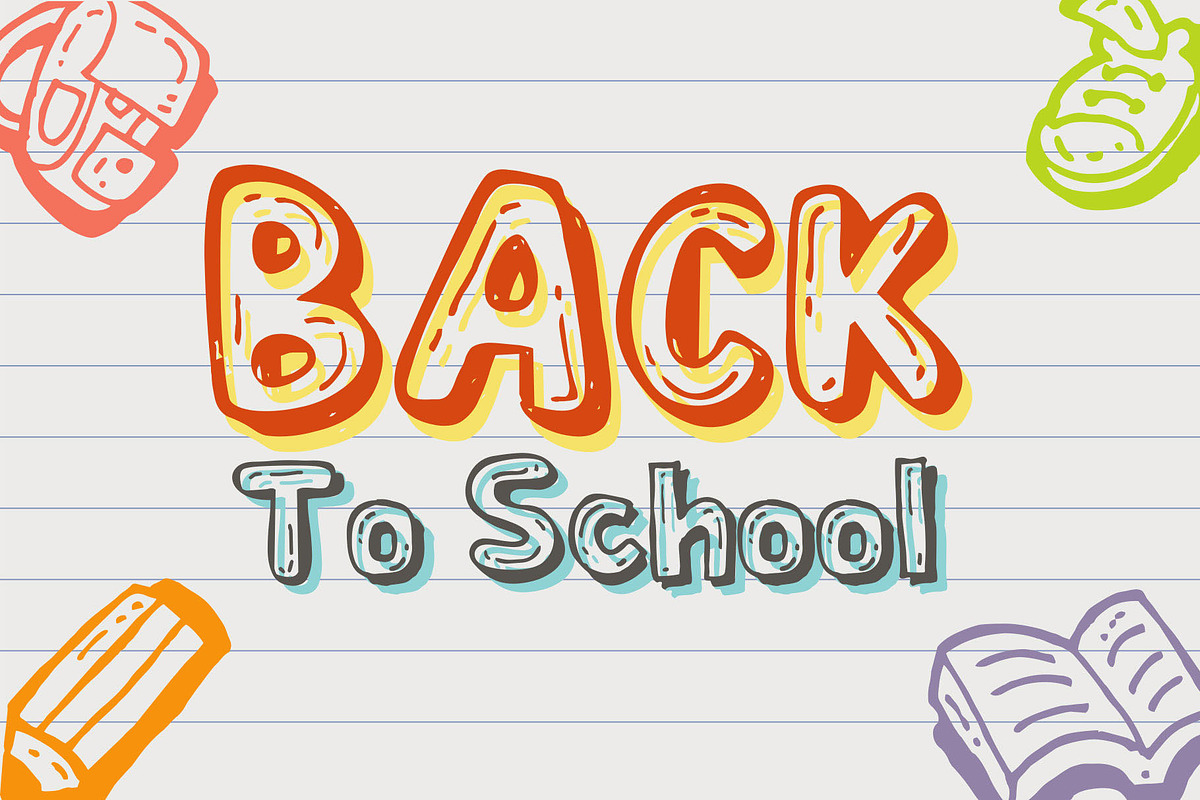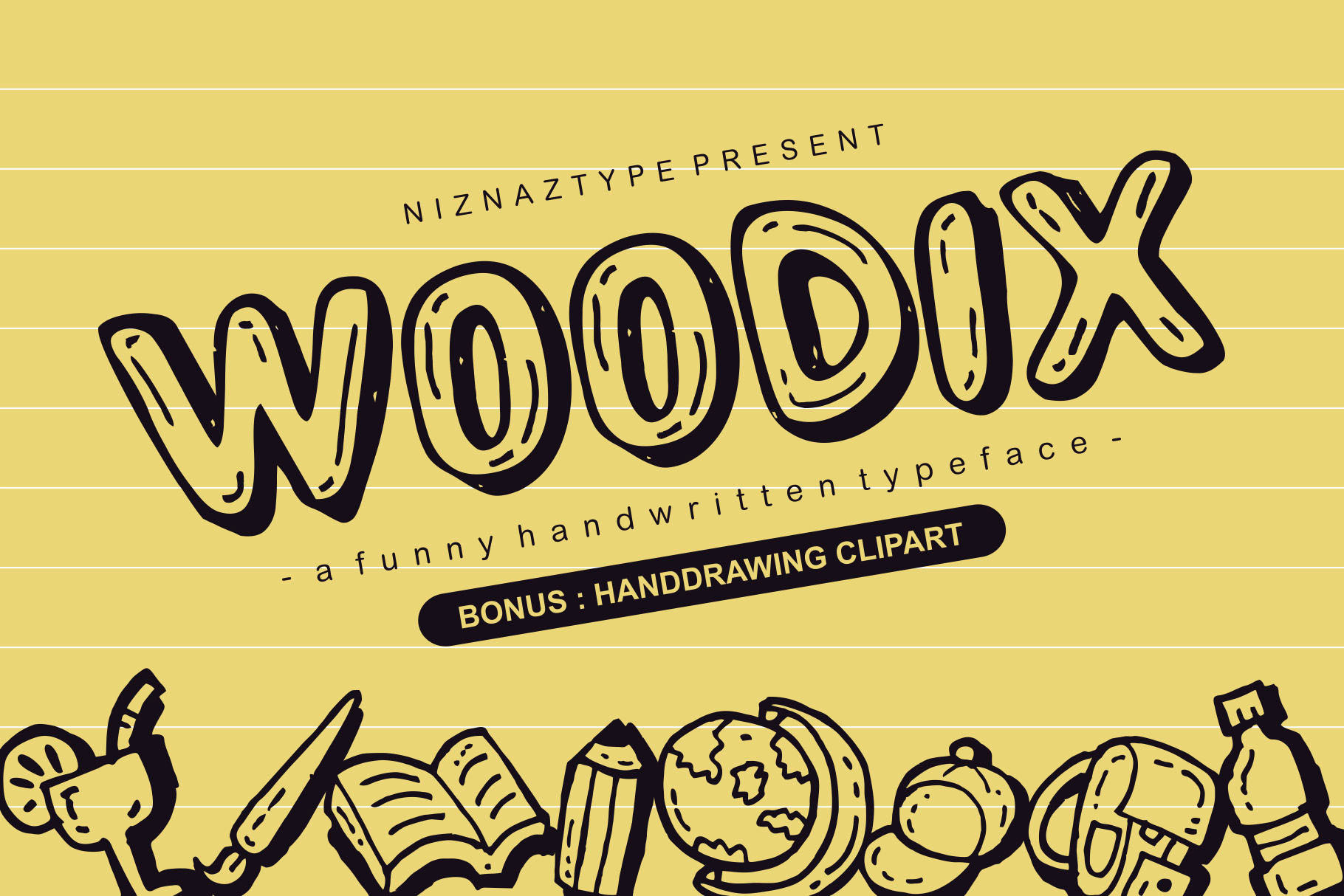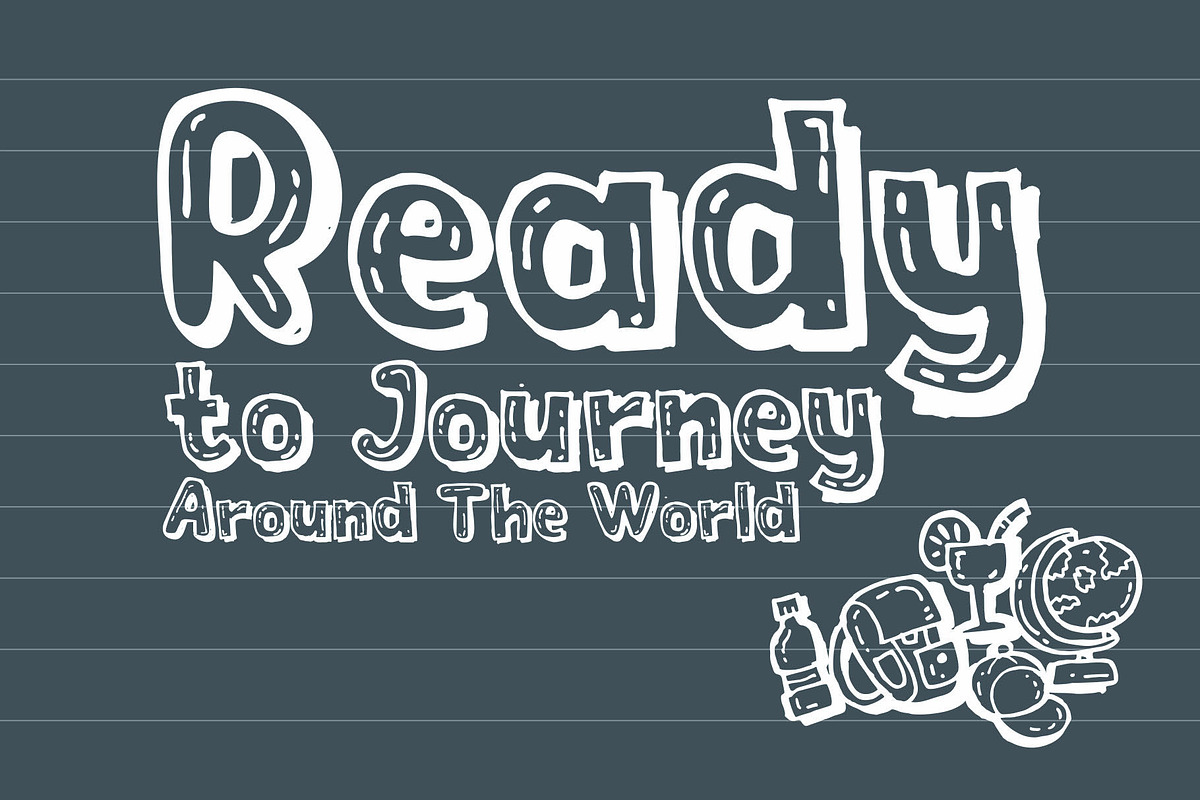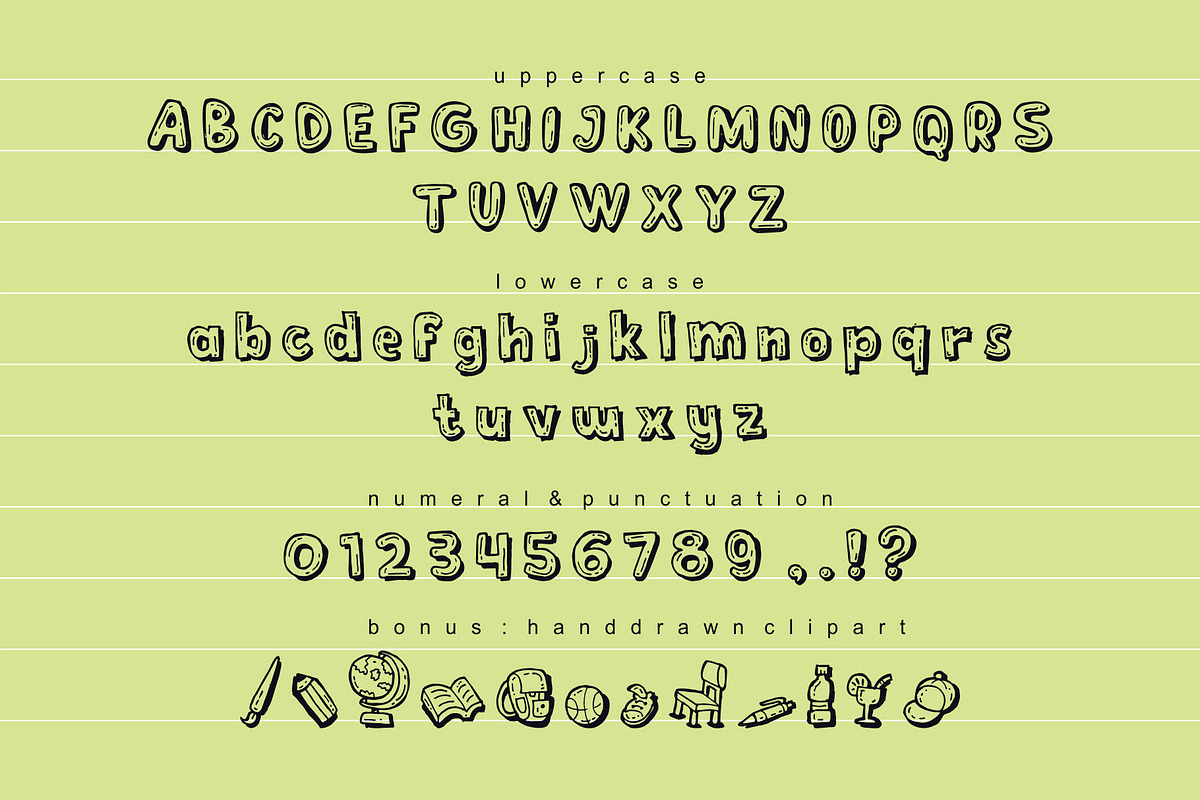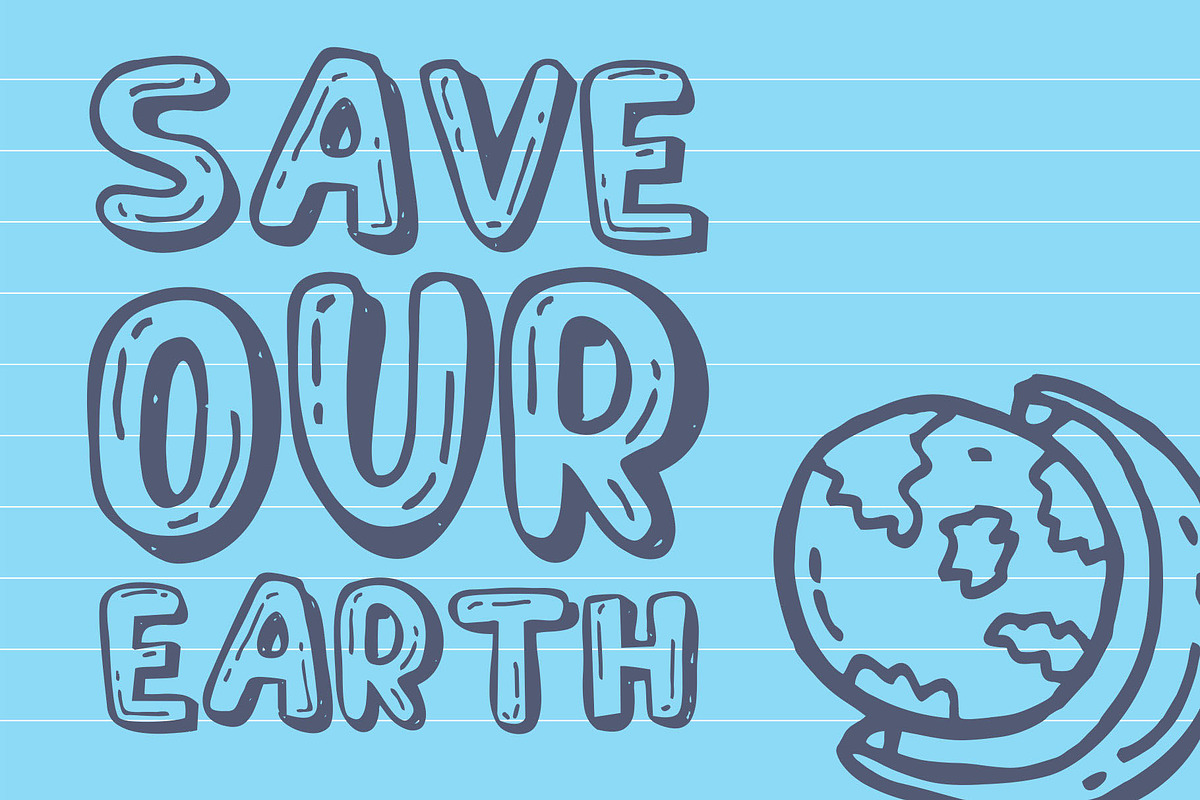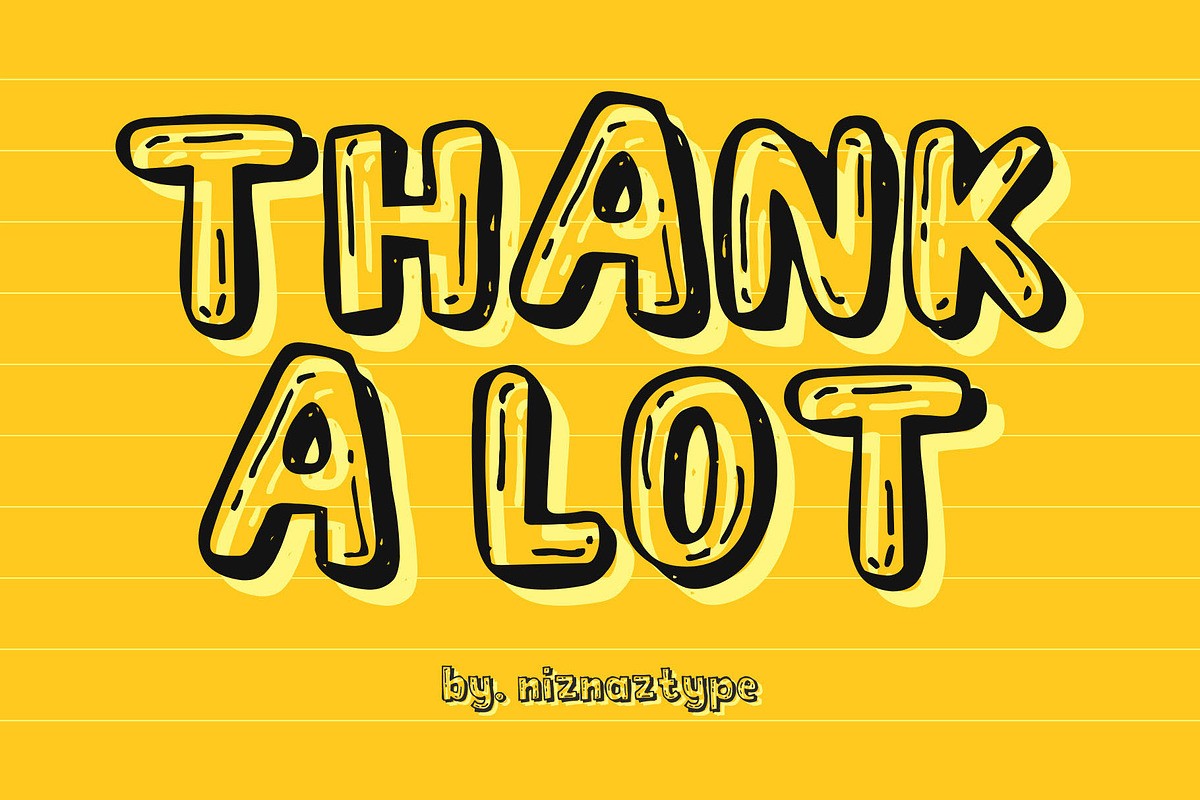
Woodix Font
Woodix font is a handwritten typeface that take inspiration from a texture and countour of the wood. Woodix font suitable for any designs. Such as poster, t-shirt, headline, product tittle, advertisement and others. This font available in three formats : TTF – OTF _WOFF Design themes like nature, comic, children, school, adventure, ethnic etc so suitable to use Woodix font. Please, enjoy it with my this font product. Send me email in emnazar@gmail.com if you have any question. Thank a lot